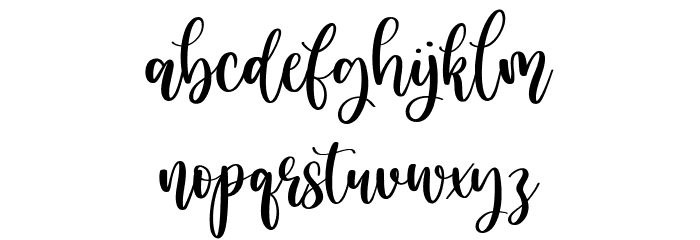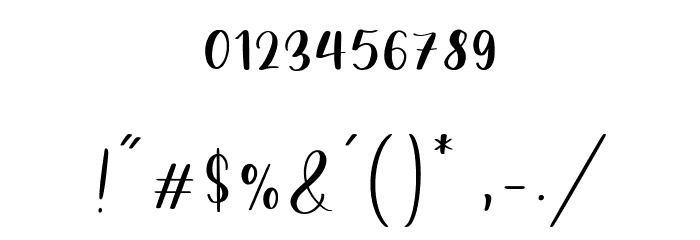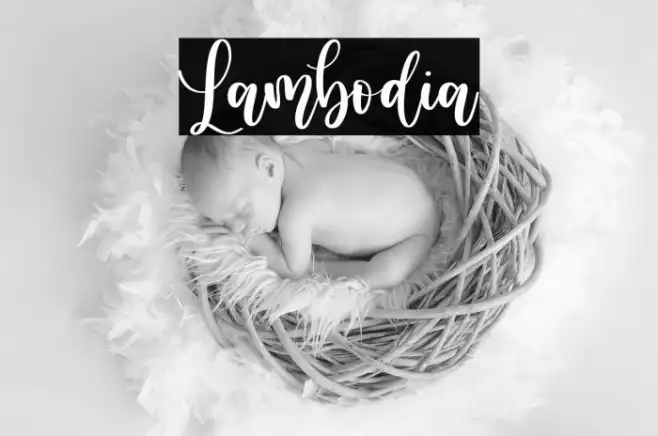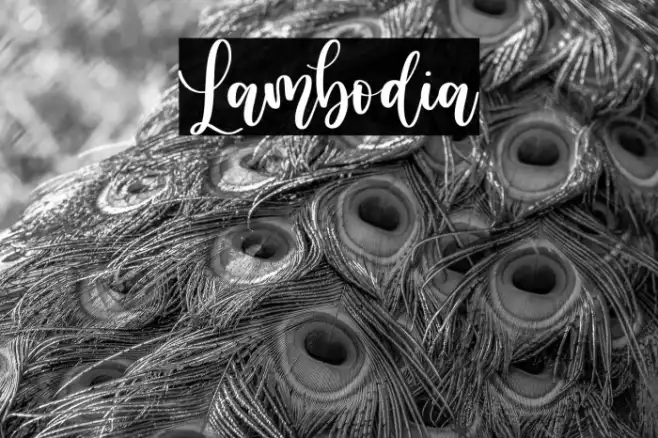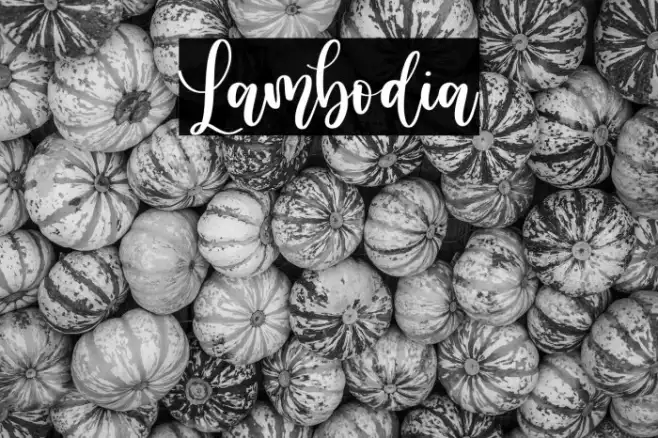
Lambodia Font
This font features an elegant, flowing script style with a modern touch. The uppercase letters are characterized by their sweeping curves and loops, giving them a sense of movement and grace. The lowercase letters maintain a consistent style, with some characters featuring unique flourishes that add personality and charm. The numerals are clear and legible, complementing the overall aesthetic. Special characters are designed with the same attention to detail, ensuring they blend seamlessly with the rest of the font. This font is perfect for projects that require a touch of sophistication and elegance.
A modern, elegant script font with flowing curves and unique flourishes.
- Proposed Projects: Ideal for wedding invitations, branding, logos, and elegant stationery.
- Use Case: Logos, Invitations, Branding